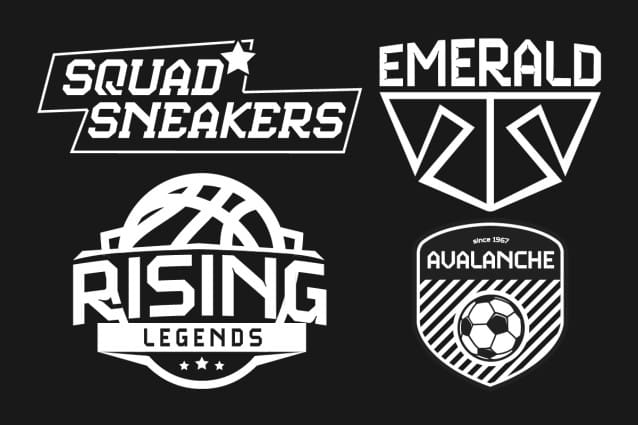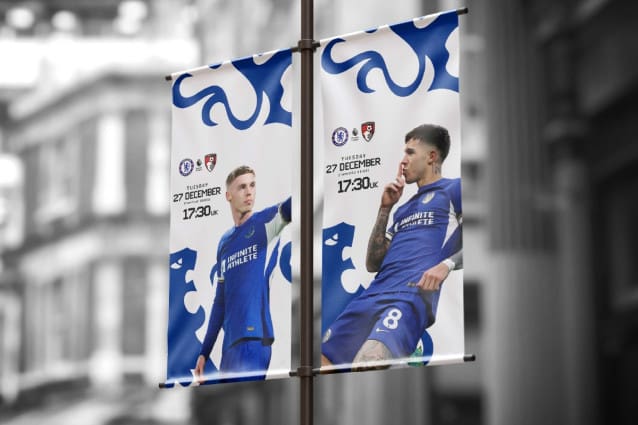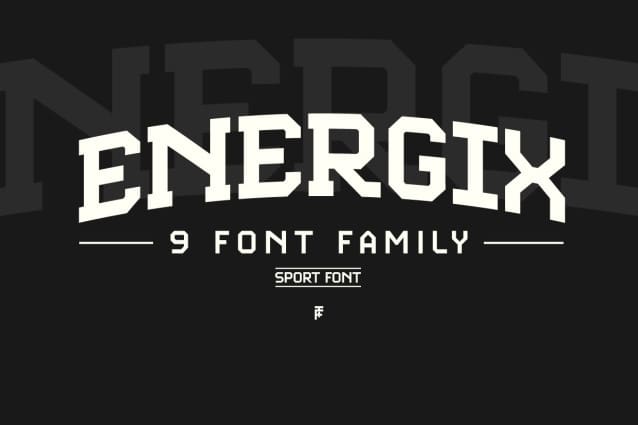
Energix Font
Energix Font, from Firstype Studio is a bold and dynamic typeface meticulously crafted to embody the spirit of strength and vitality. Designed with thick, commanding lines, this font is the perfect choice for any sports-related project. Its modern, impactful aesthetic ensures that it captures attention and conveys a sense of power and energy.
Energix Font is ideally suited for creating eye-catching sports logos, team jerseys, event posters, and any other design that demands an athletic and vigorous feel. The robust character of Energix ensures that your message is not only seen but felt, making it an indispensable tool for sports branding.
Whether you are designing for a professional sports team, a local athletic club, or an upcoming sports event, Energix Font brings a touch of boldness and excitement to your work. Its versatility allows it to shine in both digital and print mediums, ensuring that your designs stand out in any context.
Energix Font doesn’t just communicate your message; it amplifies it, making it an ideal choice for designers looking to inject their sports-related projects with a sense of dynamism and force. Embrace the power of Energix and let your designs make a lasting impact.